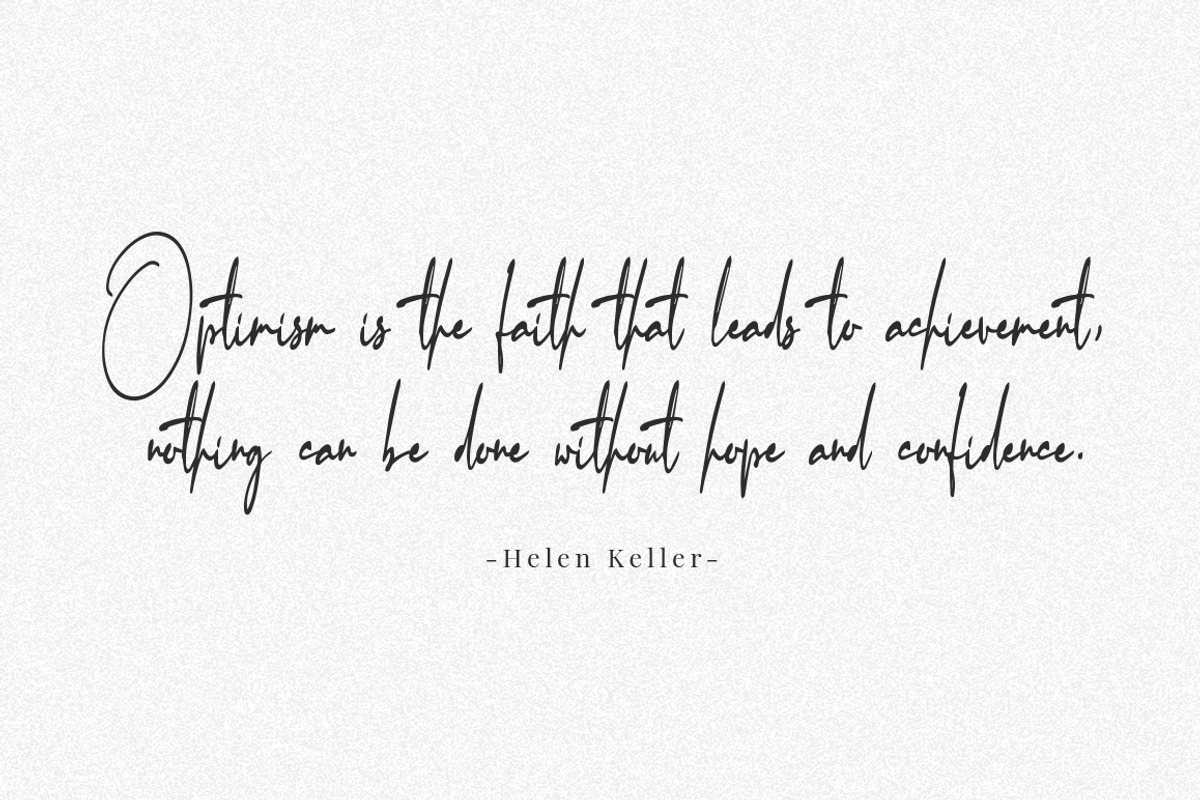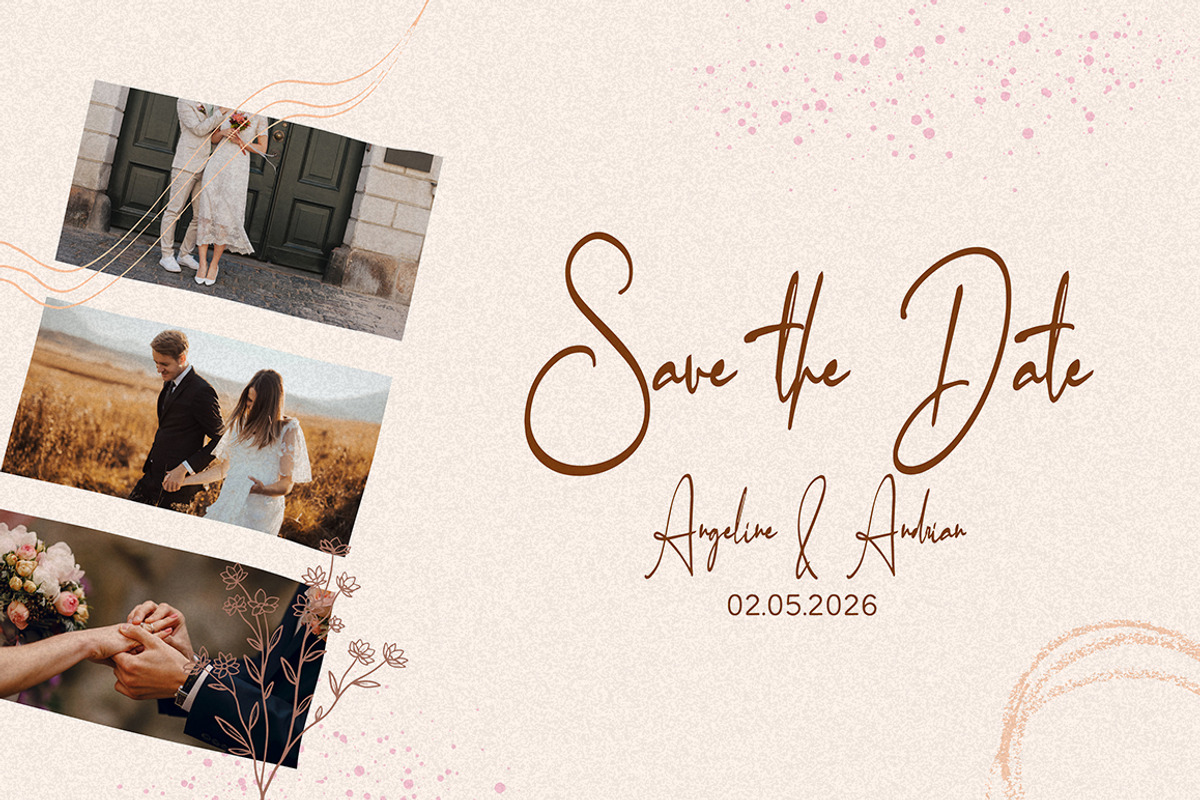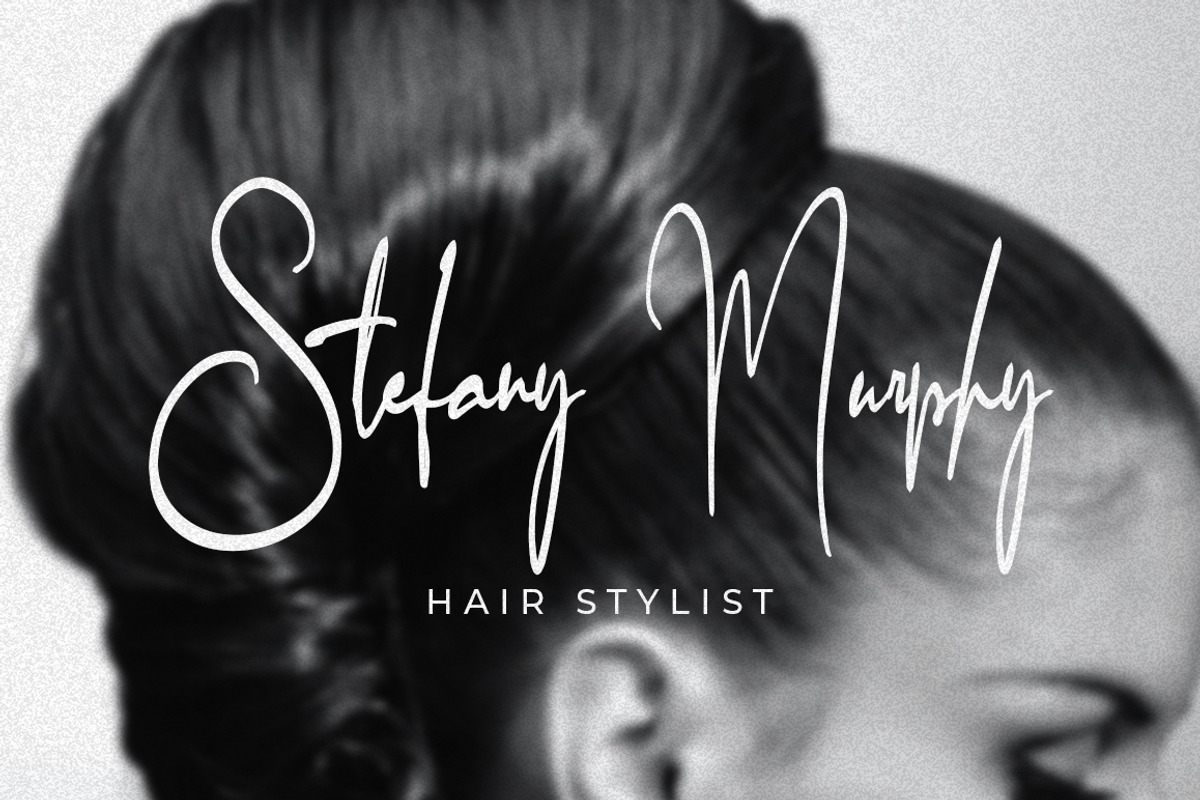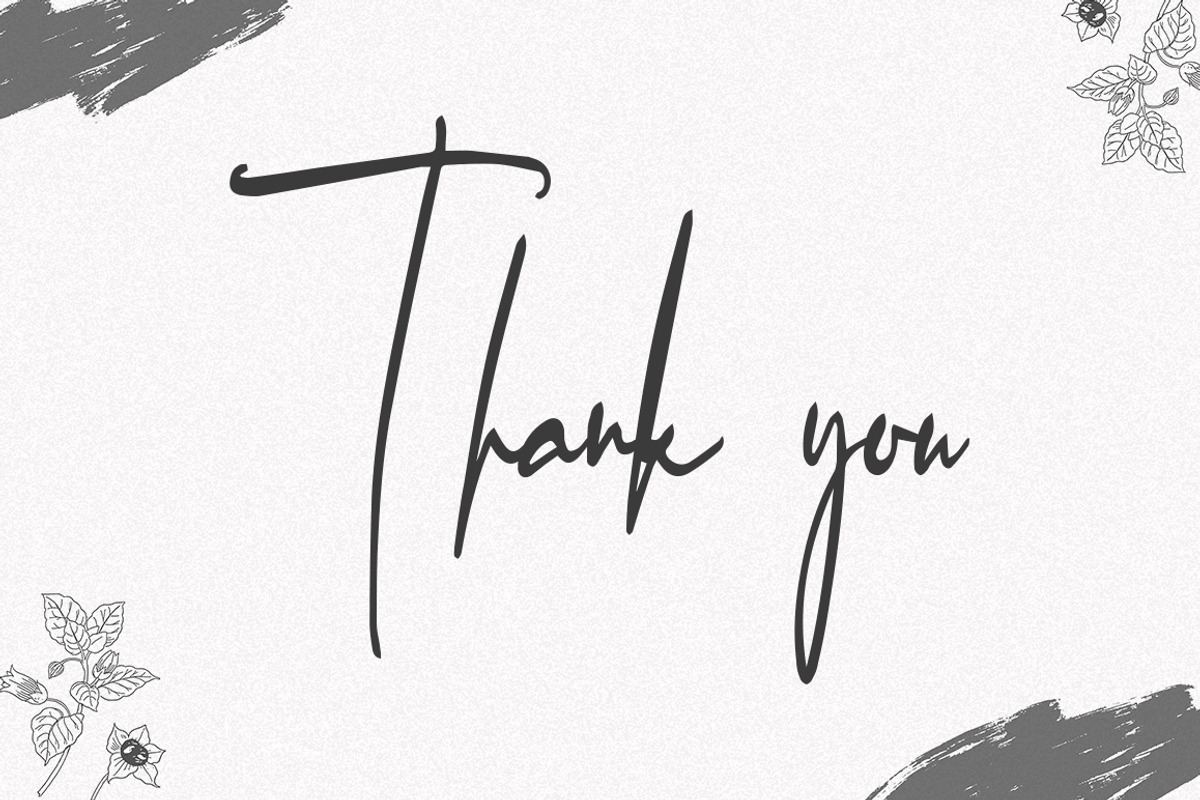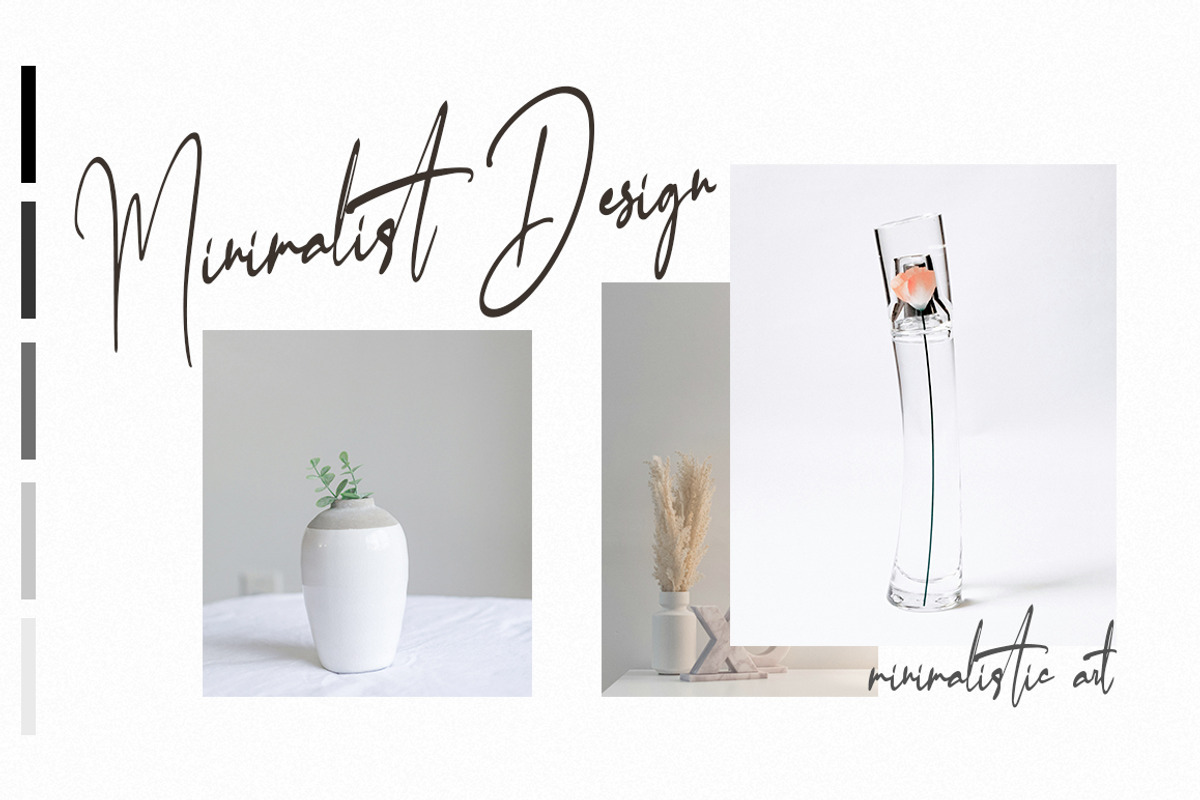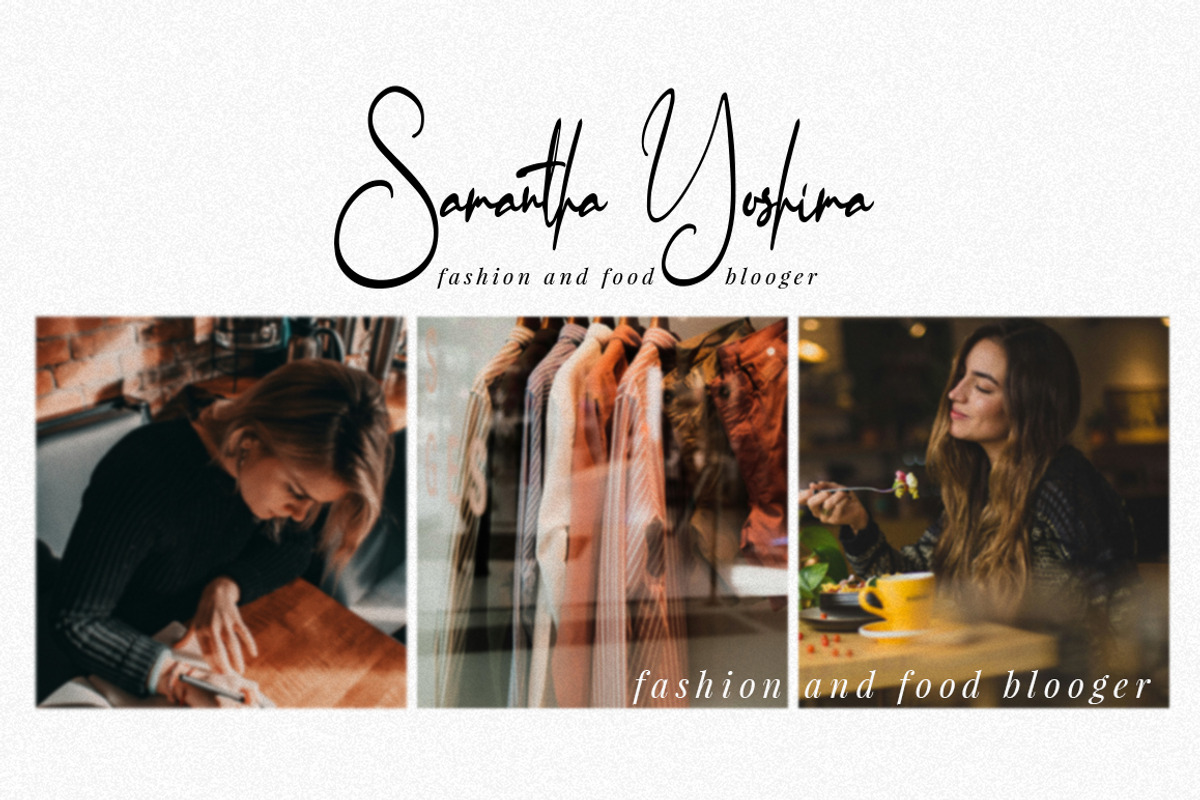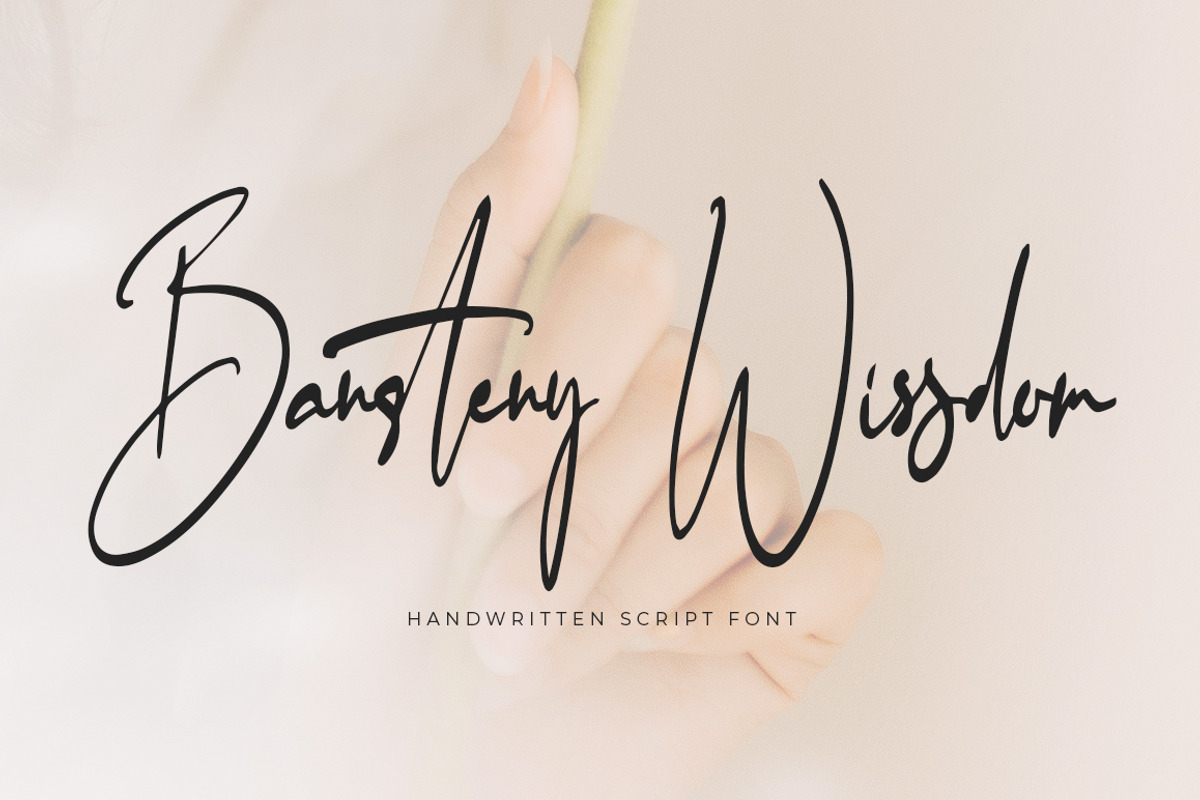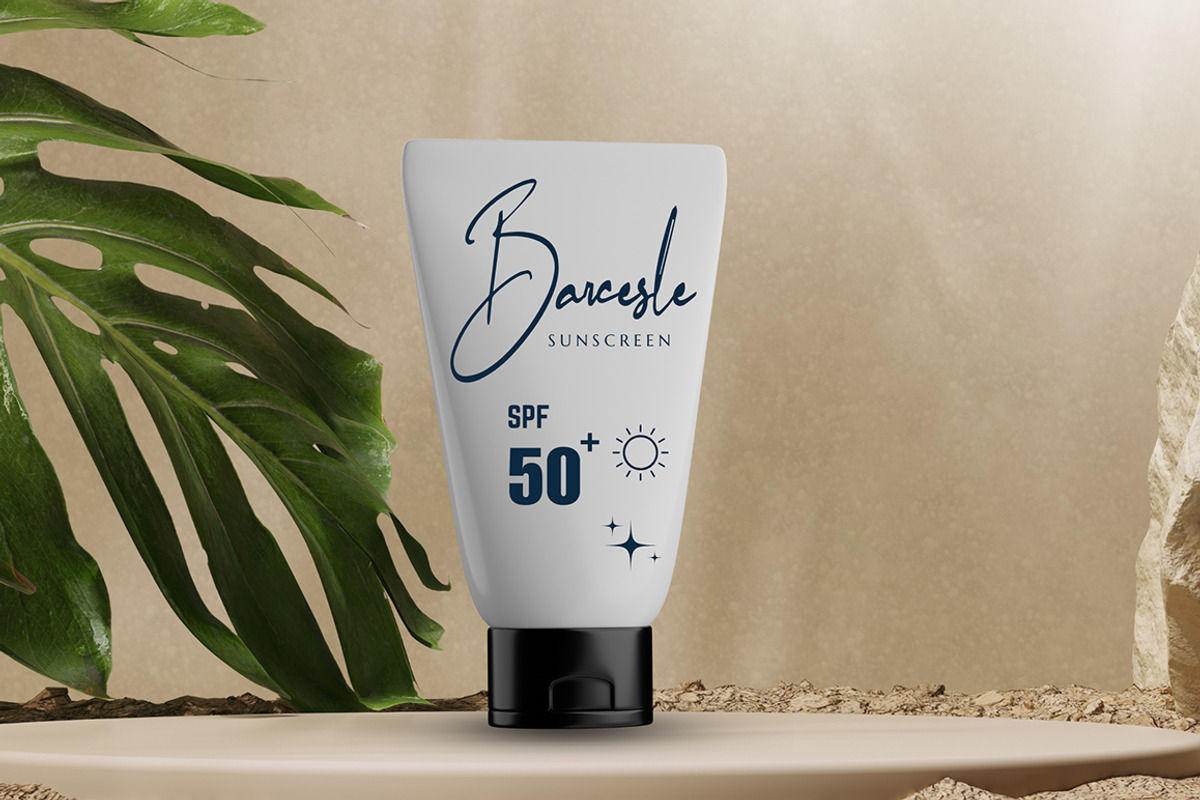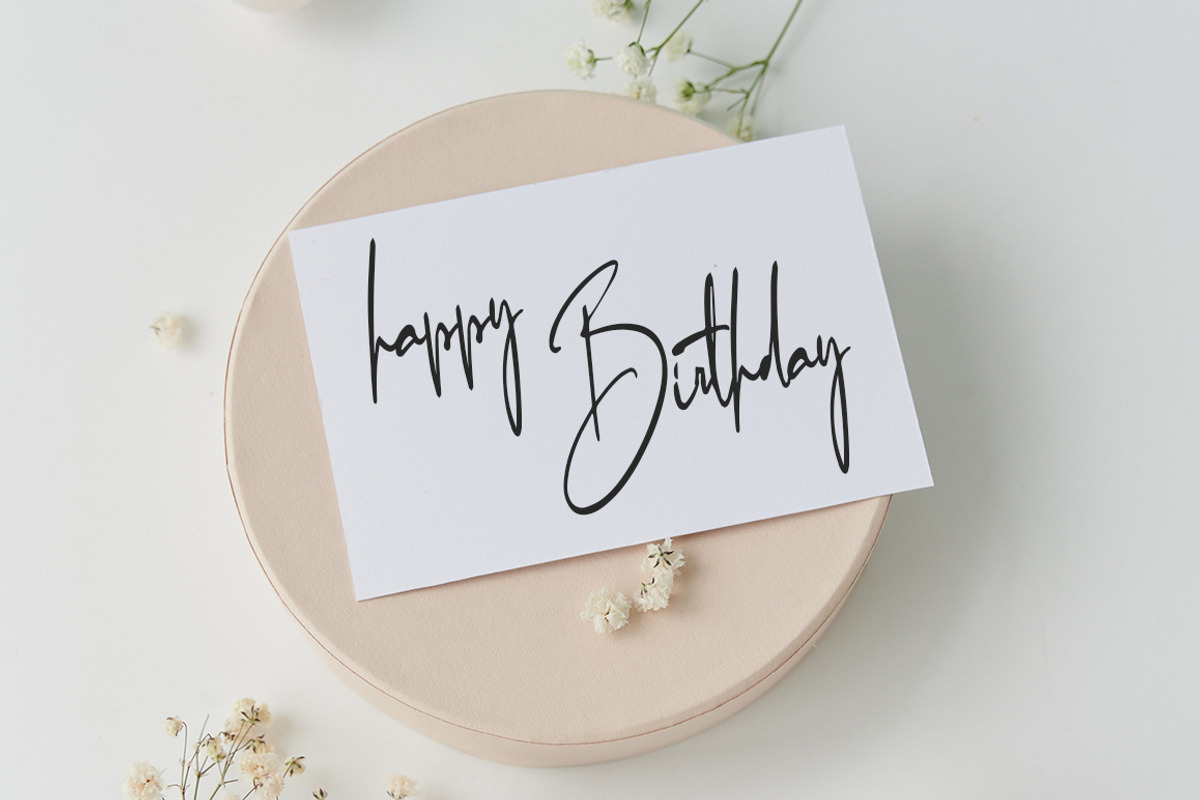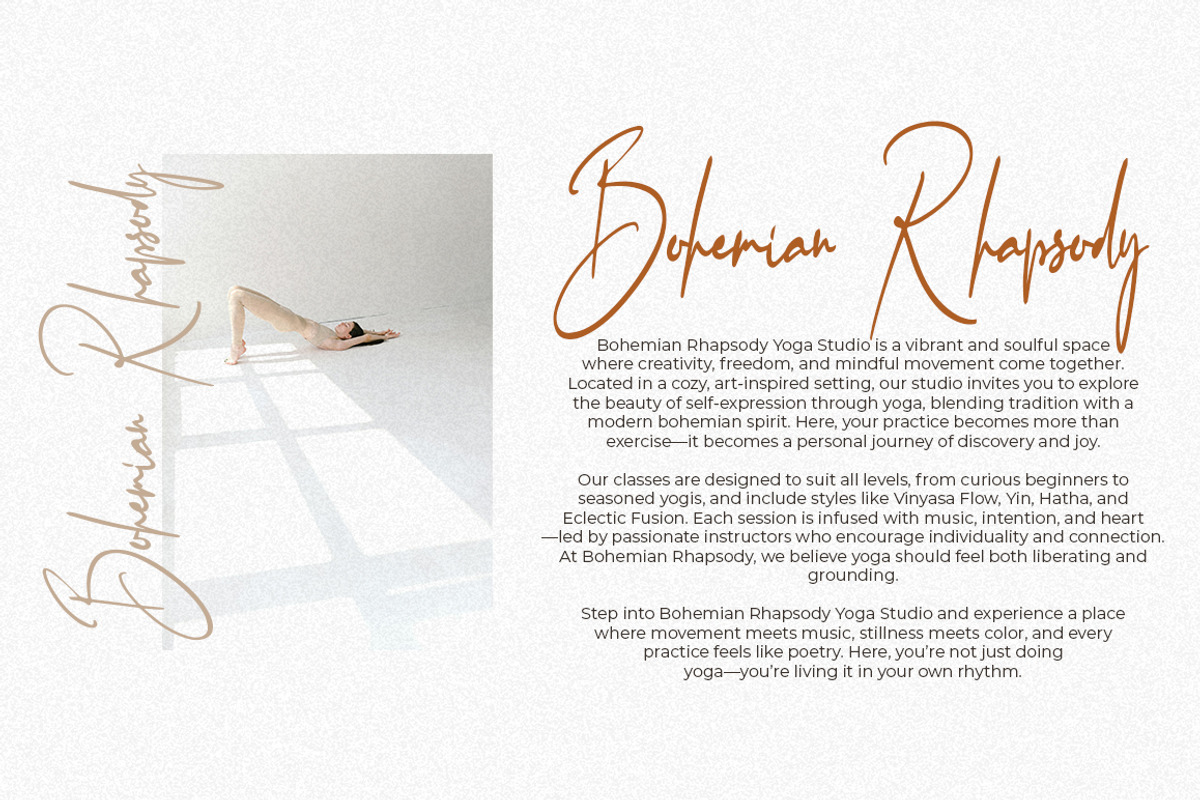
Bansteny Wissdom
Bansteny Wissdom is a stylish and elegant handwritten script font. It showcases a beautiful blend of fluid strokes and high-contrast lines, creating a dynamic yet graceful appearance. The tall, looping ascenders and descenders give the typeface a sophisticated and modern aesthetic, while maintaining a personal and natural handwritten feel. The letterforms have a balanced rhythm and a slightly edgy touch, making it stand out without sacrificing readability.
This font is especially well-suited for projects that require a personal, refined, and artistic touch. Ideal uses include branding, wedding invitations, feminine logos, signature-style headers, social media graphics, beauty or fashion products, and high-end packaging.
Its romantic and creative style makes it perfect for any design that aims to communicate elegance and authenticity.